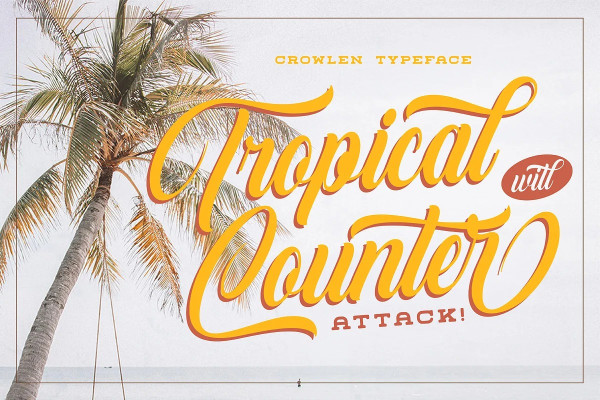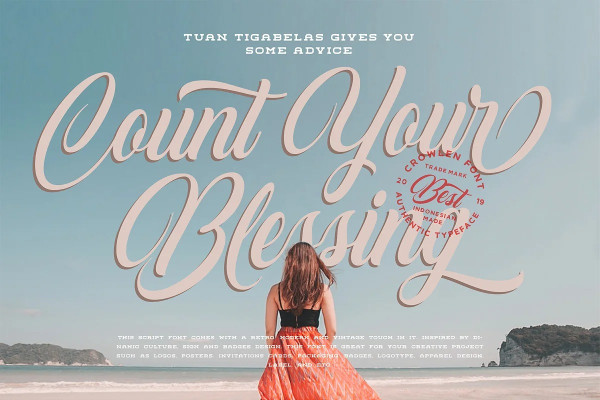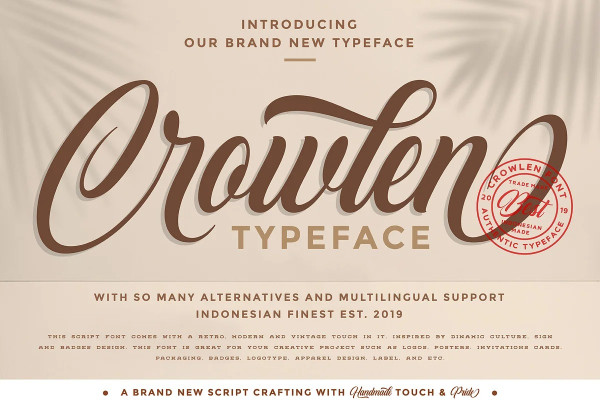
Crowlen Script Font
Crowlen Script Font, this script font comes with a modern and vintage touch in it. Inspired by adventure and outdoor culture, sign and badges design. This font is great for your design project such as logos, posters. invitations cards, packaging, badges, logotype, apparel design, Label, and etc.
Crowlen Script comes with uppercase, lowercase, numerals, punctuations and so many variations on each characters include opentype alternates. Mix and match this font with a bunch of alternative to fit your project. This font gives you so many options to create something unique